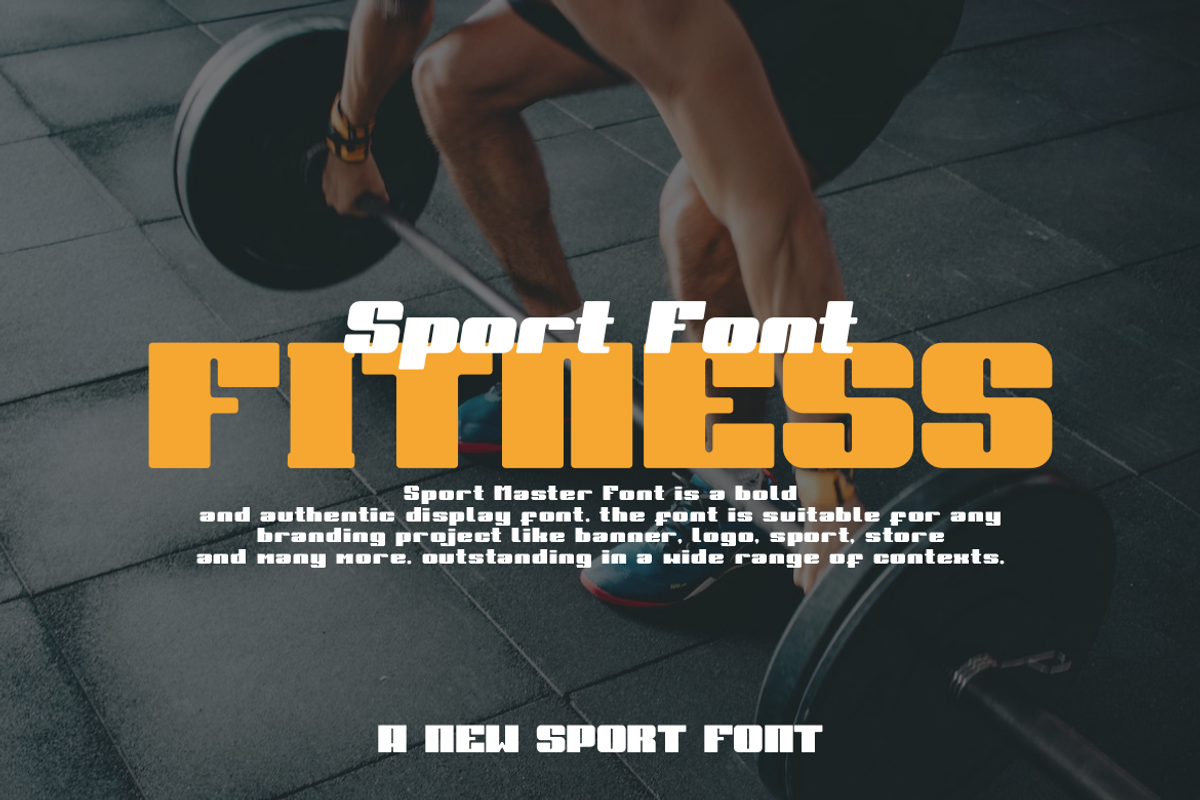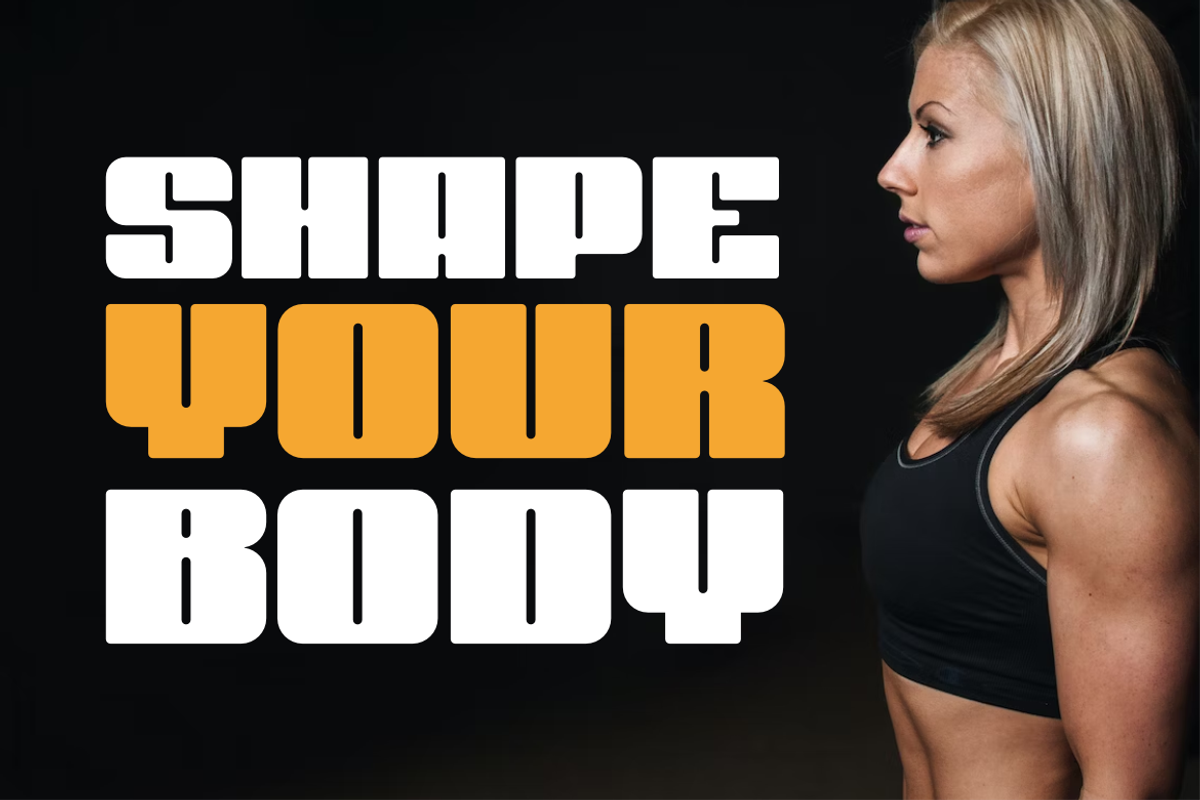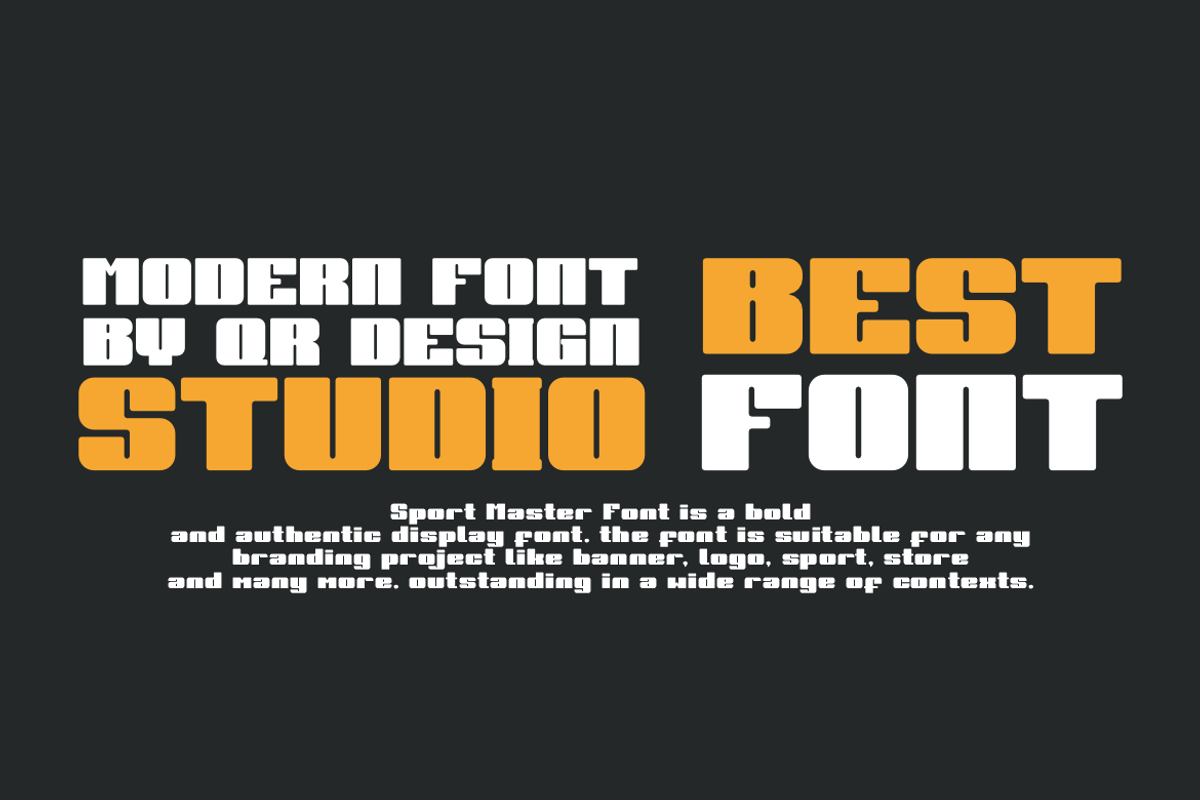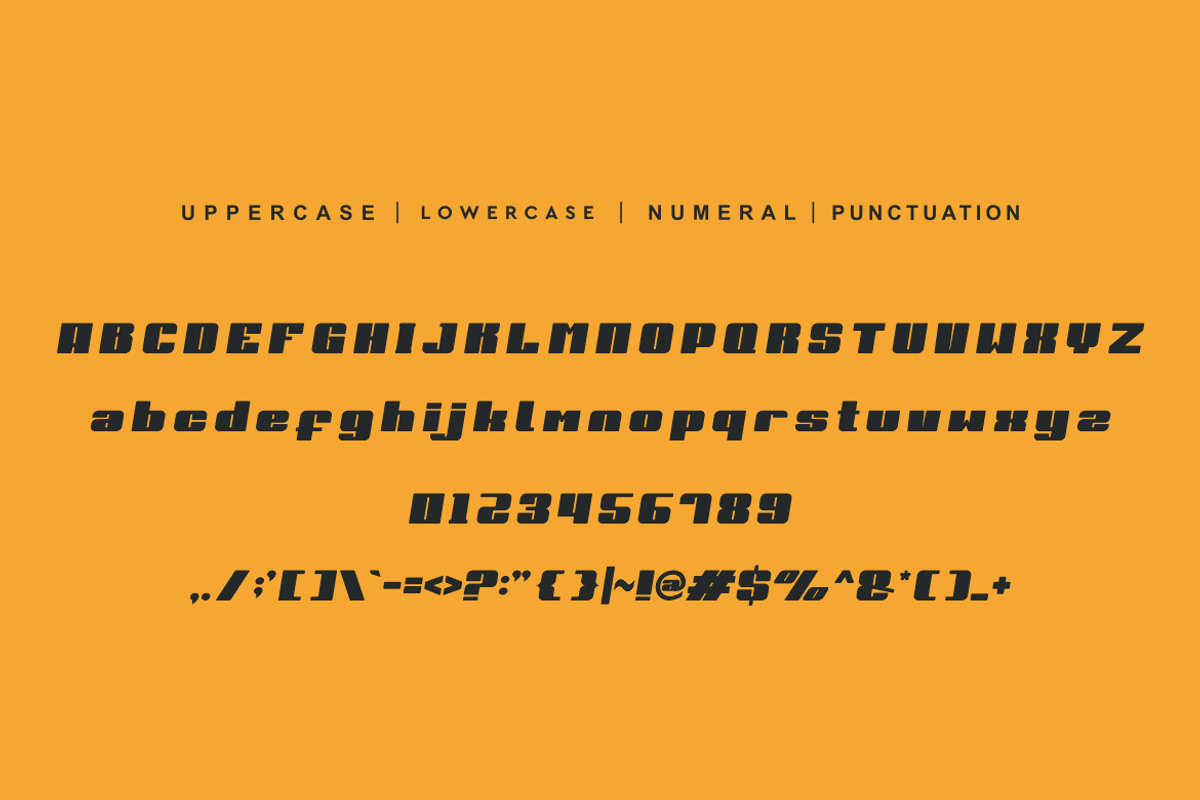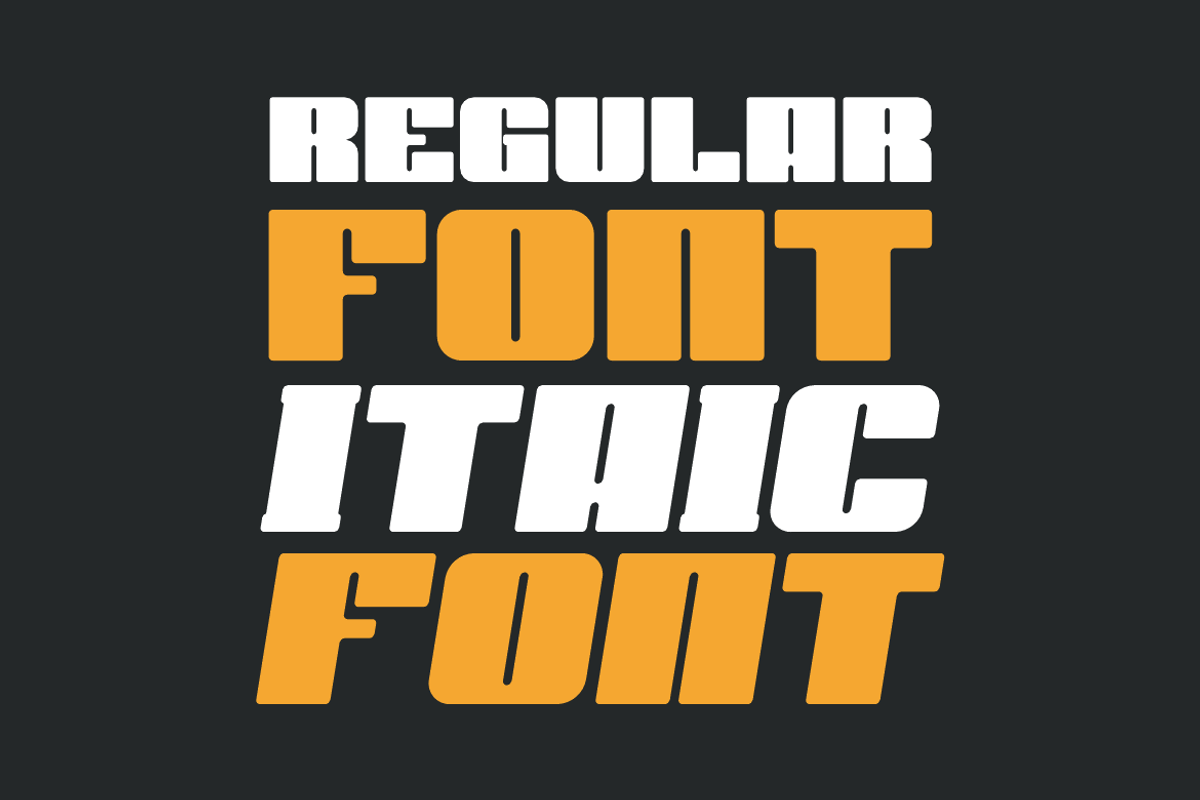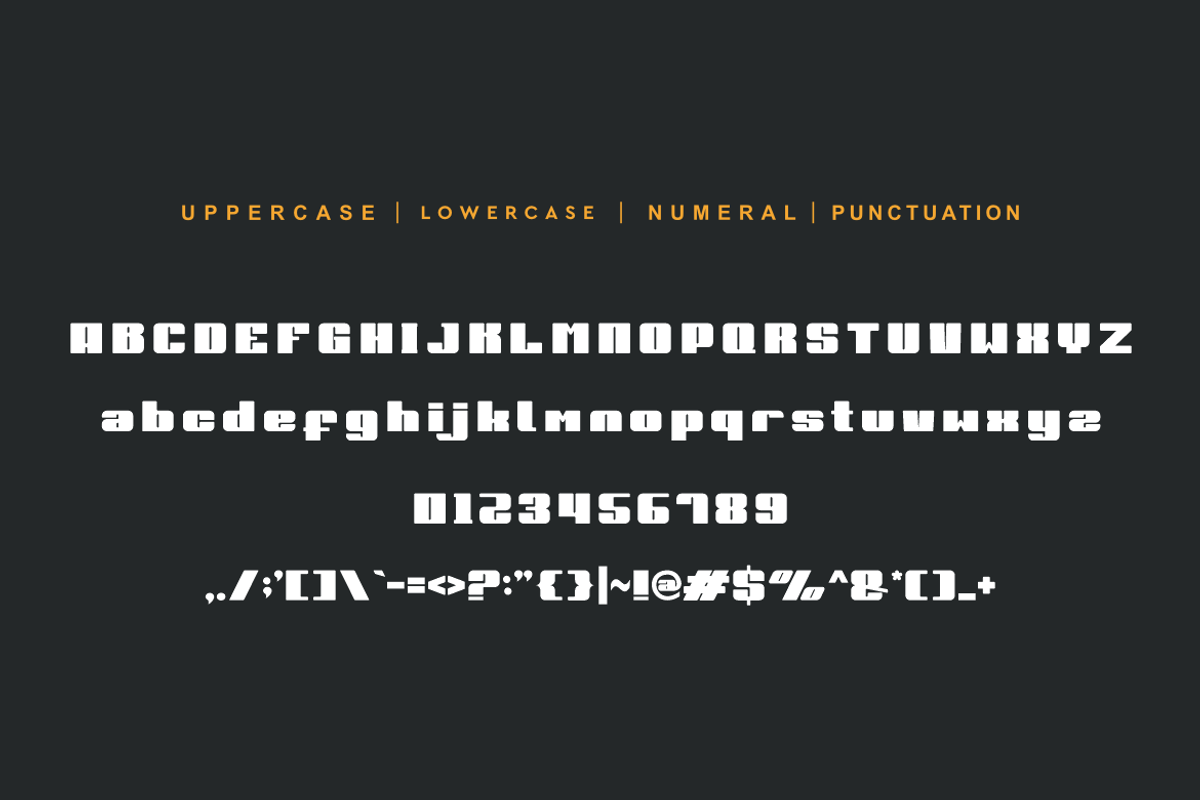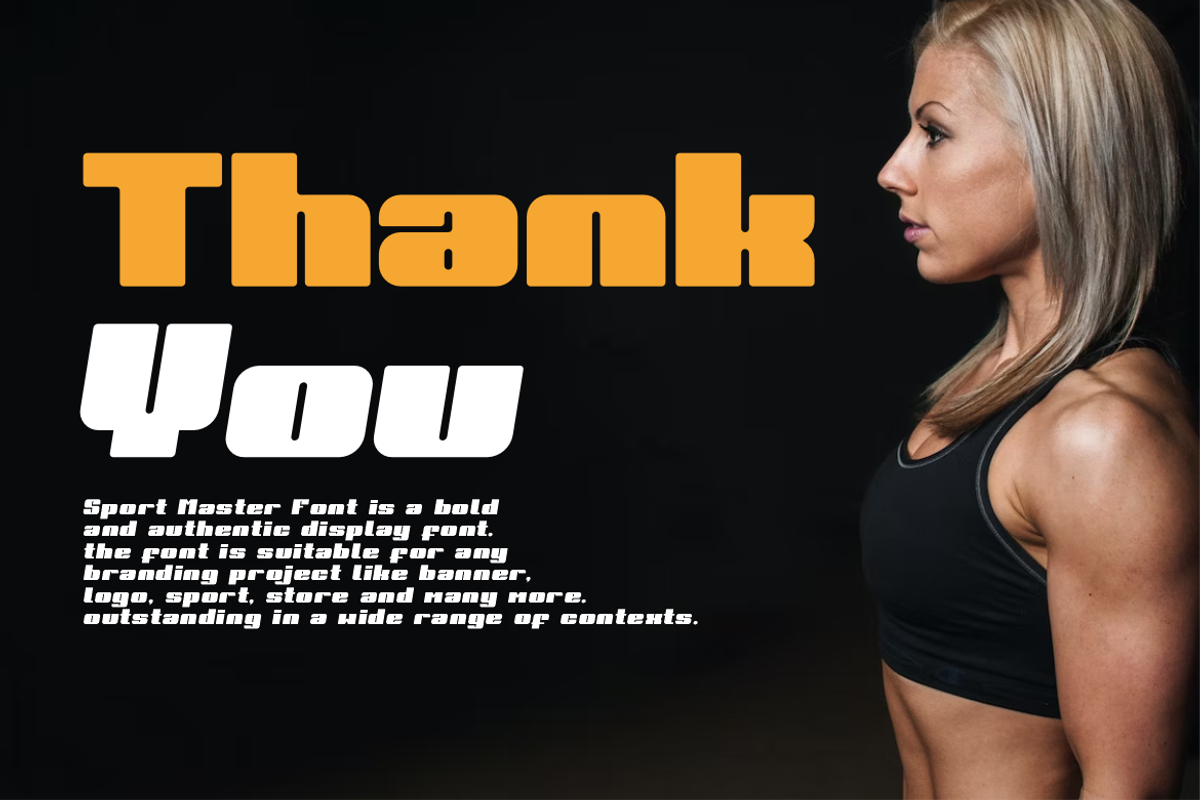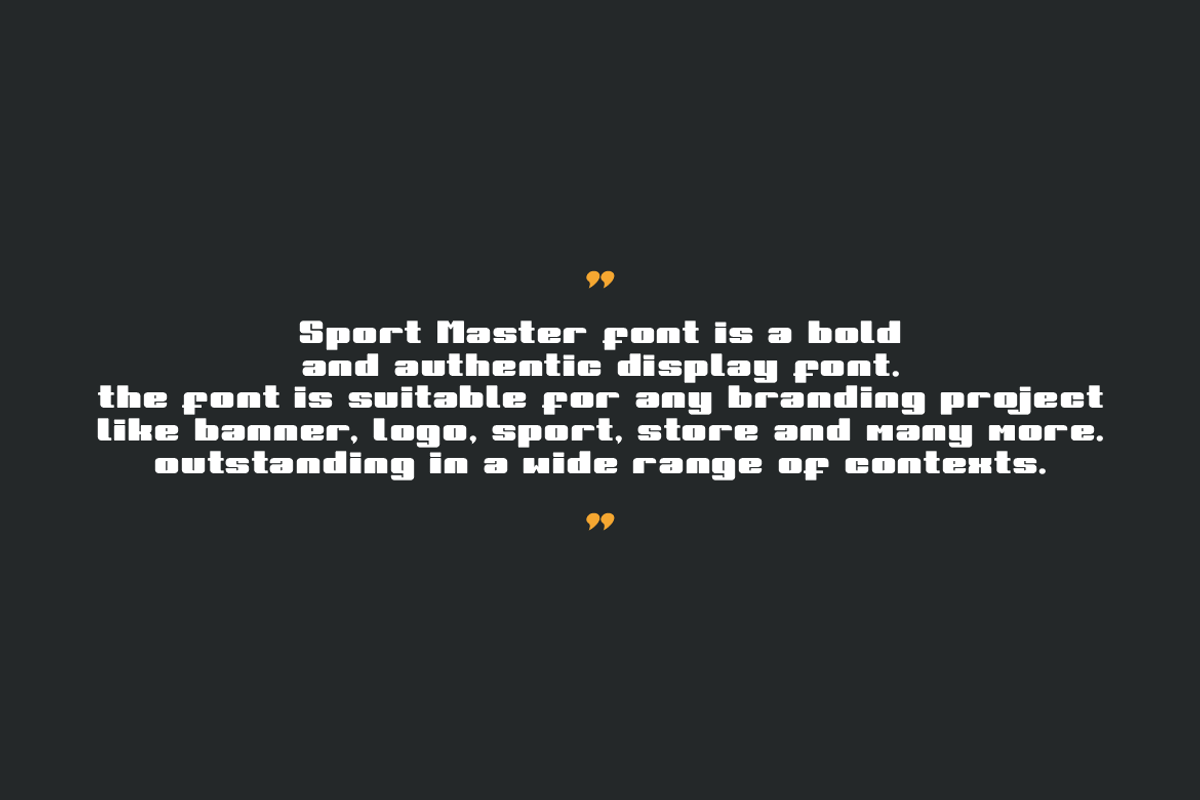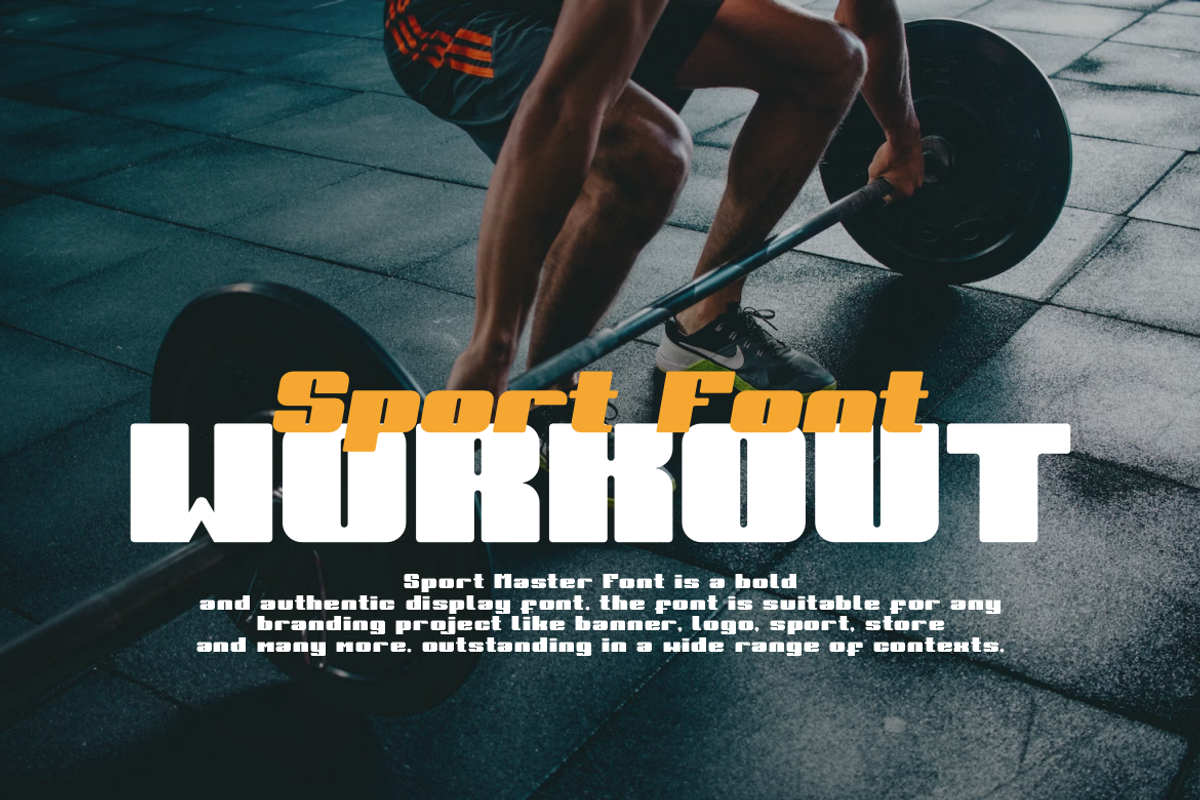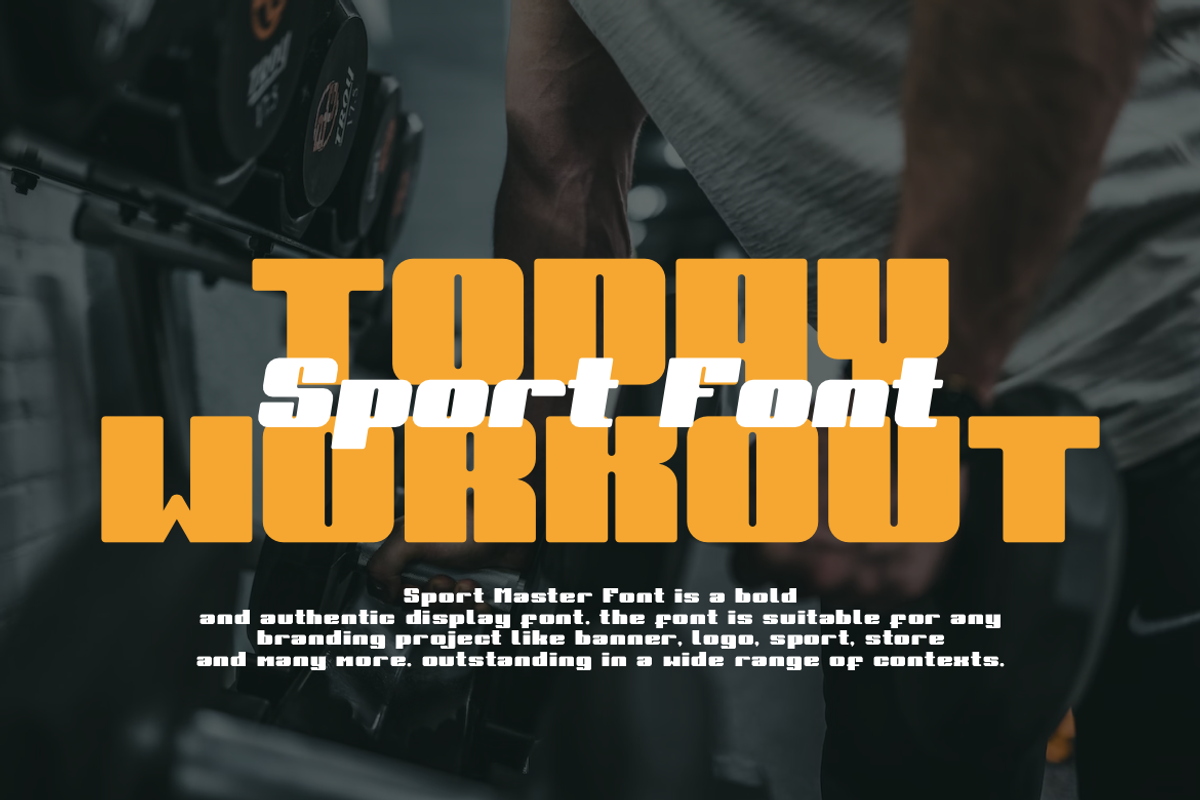
Sport Master Font
Sport Master Font is a bold and authentic display font. The font is suitable for any branding project like logo, sport, and many more. Outstanding in a wide range of contexts.